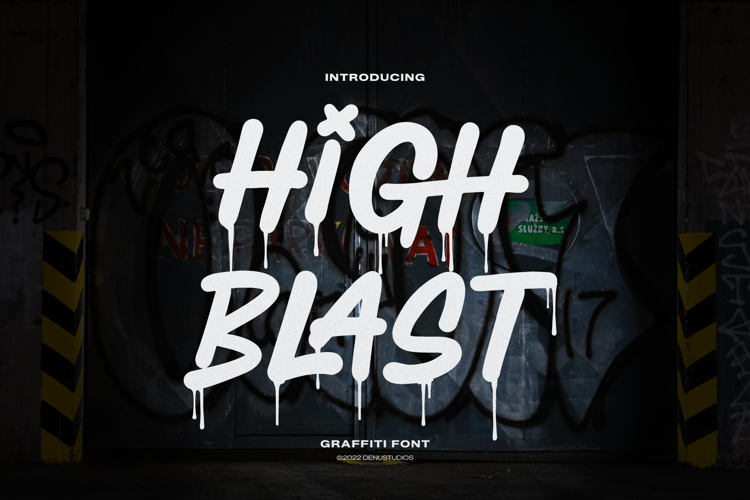
High Blast Font
High Blast | Graffiti Font product packaging, mugs, quotes, posters, shopping bags, t-shirts, book covers, name card, invitation cards, greeting cards, label, photography, watermark, special events, and all your other lovely projects that need a Graffiti taste.